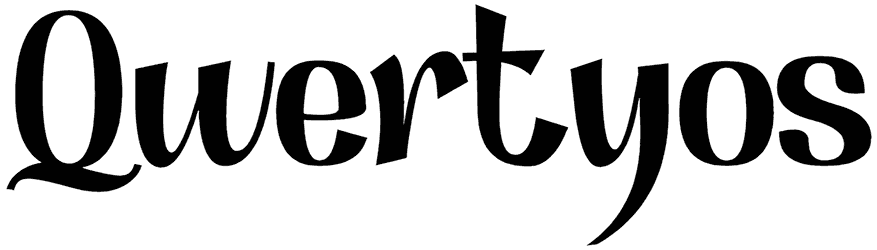
Qwertyos Font
Qwertyos is an awesome fancy font introducing a new take on this world. Compliance with standard principles is the first thing that attracts your attention in the design of this logo font. In addition, its simple and smo…
Qwertyos is an awesome fancy font introducing a new take on this world. Compliance with standard principles is the first thing that attracts your attention in the design of this logo font.
In addition, its simple and smooth curves don’t put any pressure on the eyes, which makes it different from the others. So if you’re looking for a new topic for your writing and new tools to diversify your posters, book covers, and packaging, RB offers you Qwertyos.